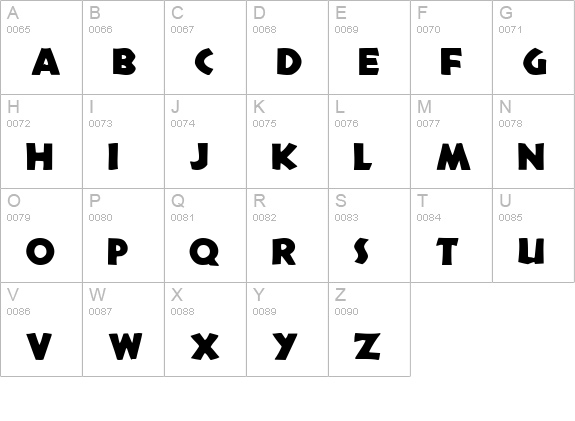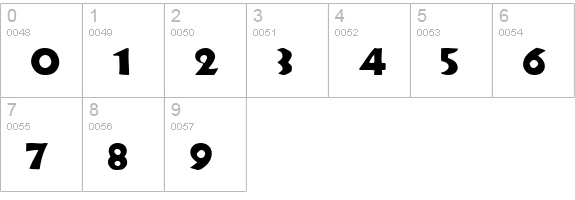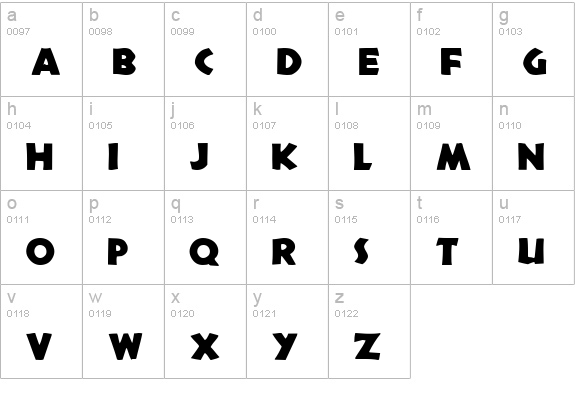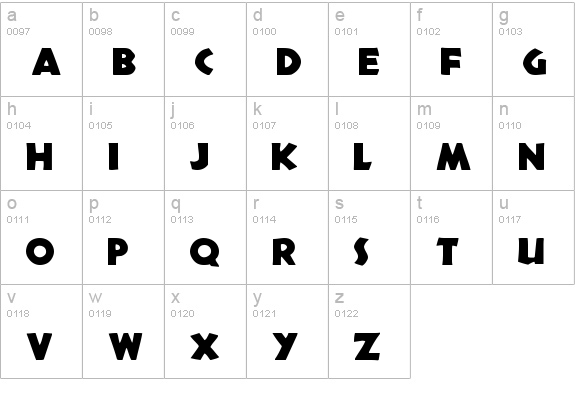
TribecaSolid Regular Font Details
TribecaSolid Regular is the standard, neutral variant in the TribecaSolid typeface family \xE2\x80\x94 well suited to general body text, paragraphs, and standard typographic work.
TribecaSolid Regular is a stunningly elegant typeface that exudes sophistication and charm. With its clean lines and timeless design, this font is perfect for adding a touch of class to any project. The letters are meticulously crafted, allowing for seamless legibility and a pleasing visual experience. What sets TribecaSolid Regular apart from other fonts is its versatile nature. Whether you're designing a logo, creating a professional presentation, or crafting eye-catching headlines, this font effortlessly adapts to any context. Its balanced proportions and well-defined curves create a harmonious visual rhythm that is both pleasing to the eye and easy to read. But what truly makes TribecaSolid Regular a standout font is that it is free. Yes, you read that right! This exceptional typeface is freely available to download at FontsMarket.com. Now you can elevate your designs without breaking the bank. It's a rare opportunity to access a font of this caliber without any cost. So why wait? Enhance your projects with the timeless elegance of TribecaSolid Regular. Download it today from FontsMarket.com and unlock a world of endless design possibilities. Whether you're a professional designer or a passionate hobbyist, this font will undoubtedly become a staple in your collection. Experience the beauty and versatility of TribecaSolid Regular and let your creativity soar.